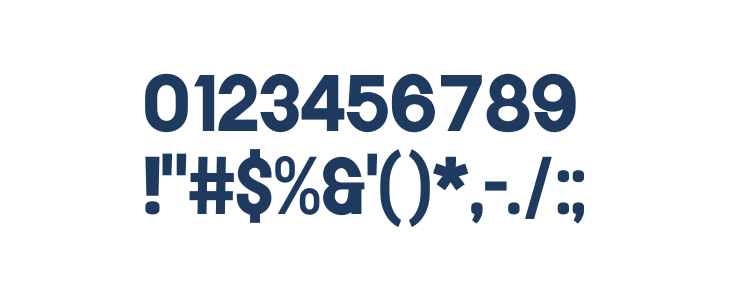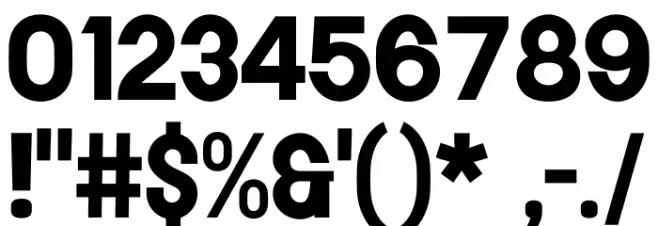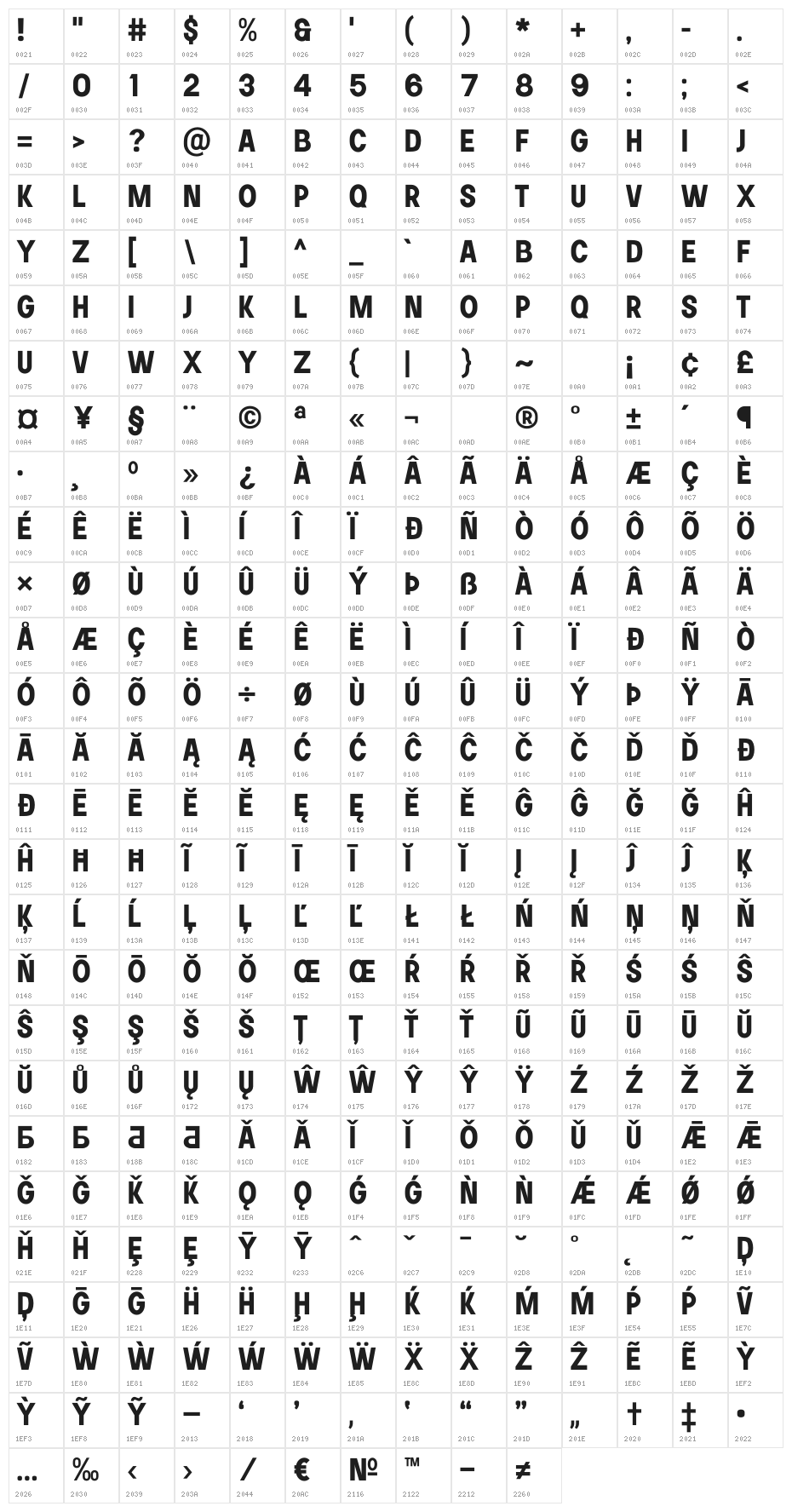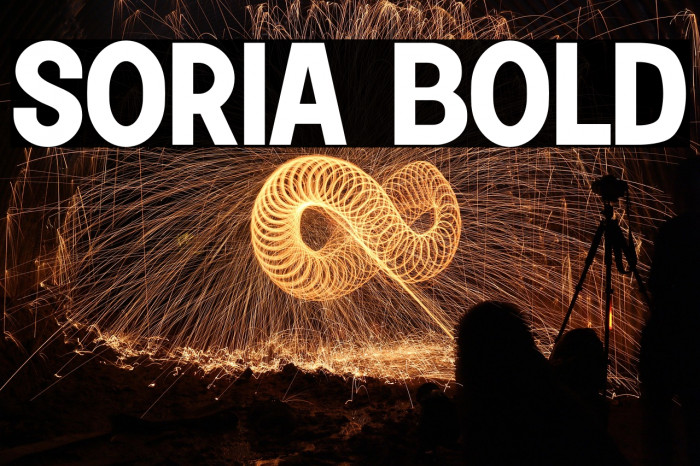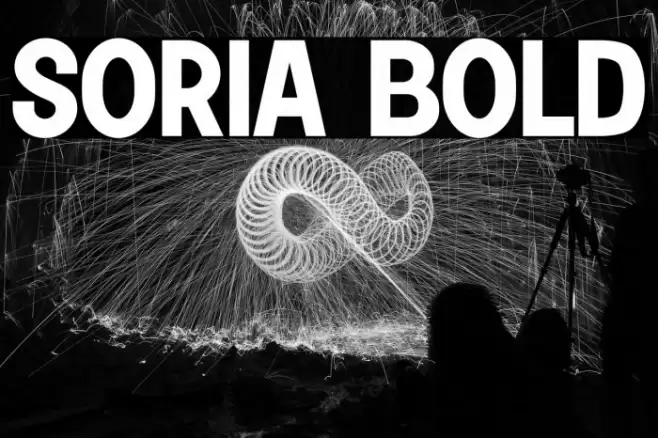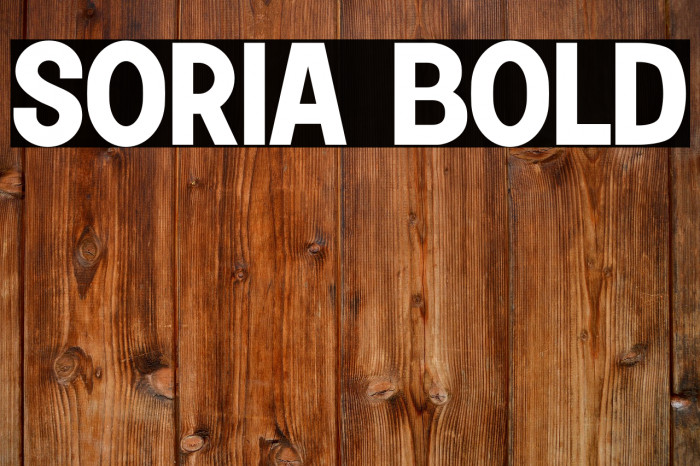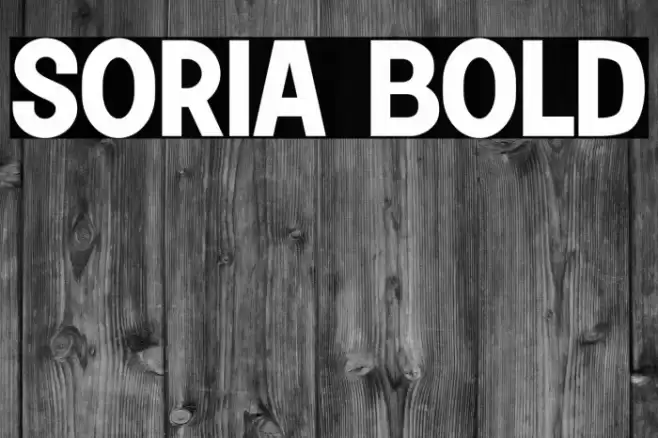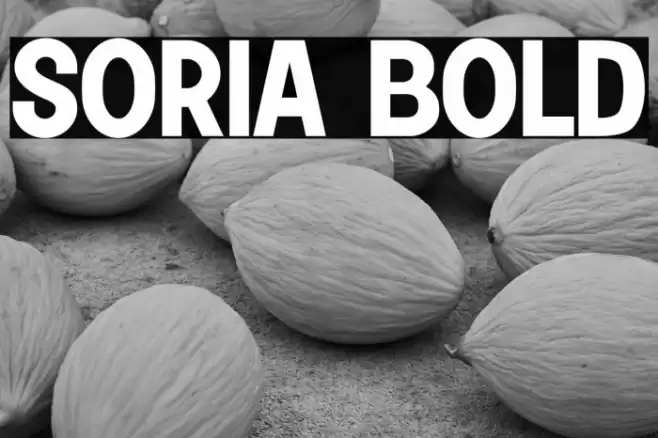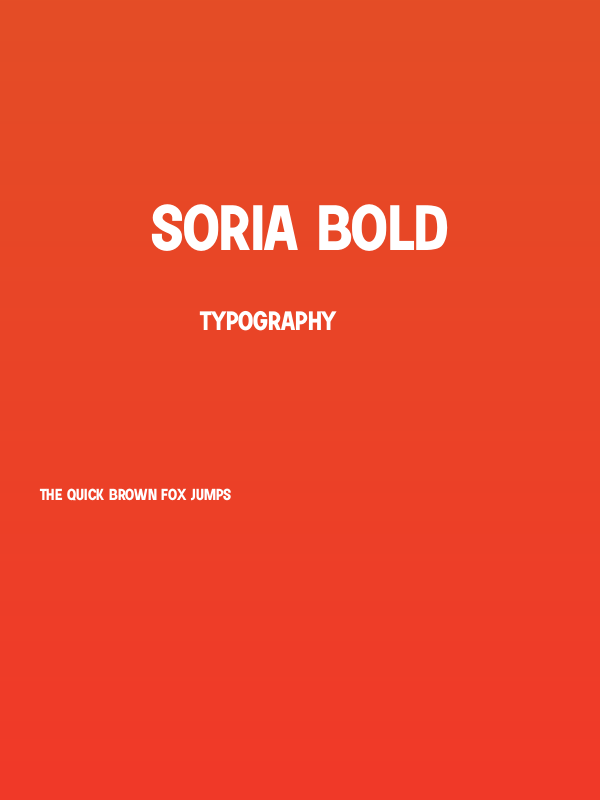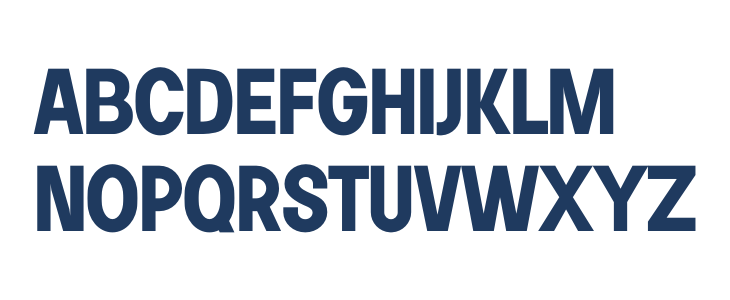
Soria Bold Font
Soria Bold Description
This font is a bold, sans-serif typeface with a strong and impactful presence. The characters are uniformly thick, providing a consistent and powerful look across all letters and numbers. The uppercase and lowercase letters are well-defined, with a modern aesthetic that is both clean and straightforward. The numerals are clear and easy to read, making them suitable for various applications. Special characters are included, maintaining the bold and robust style. The overall design is versatile, suitable for both digital and print media.
| Proposed Projects | Ideal for headlines, posters, branding, and advertising where a strong visual impact is needed. |